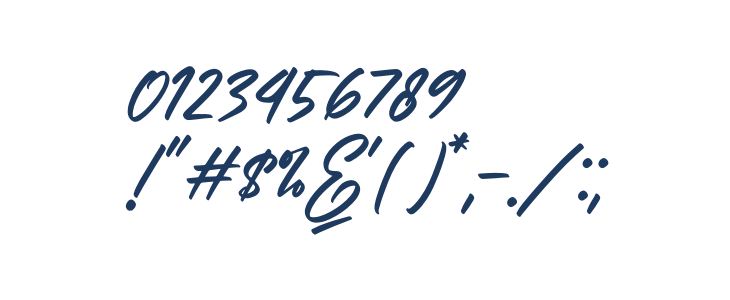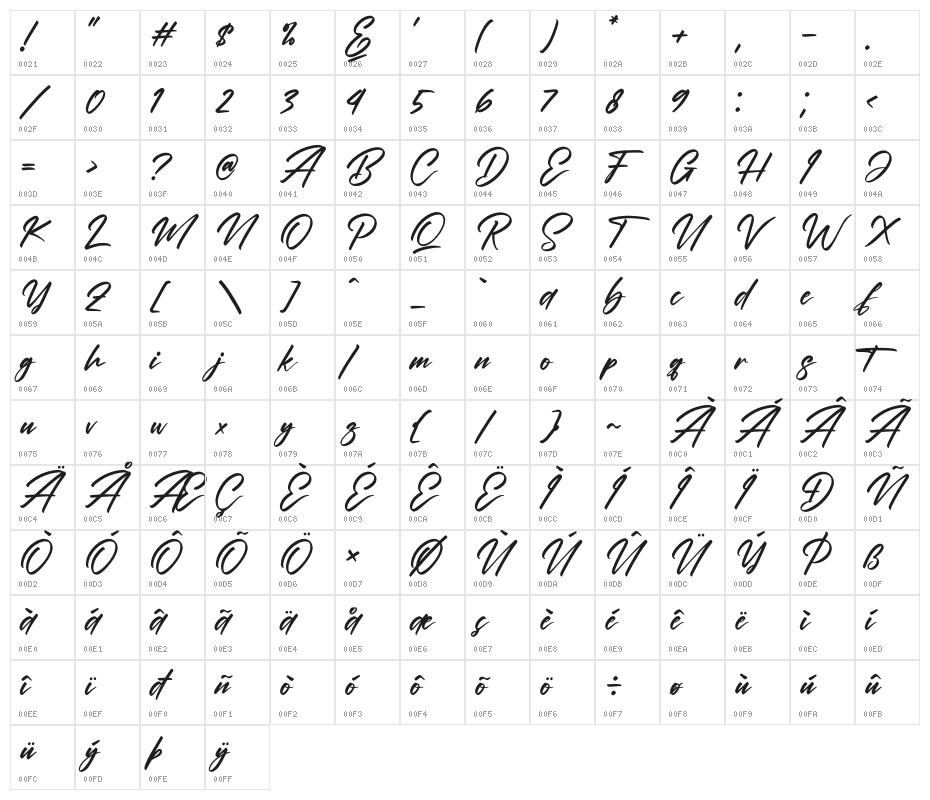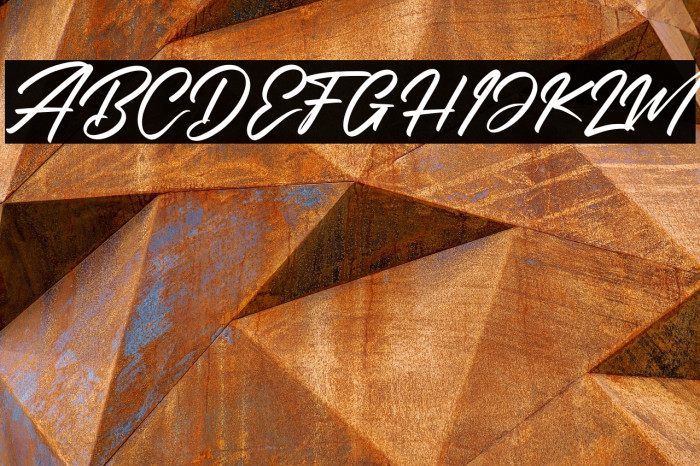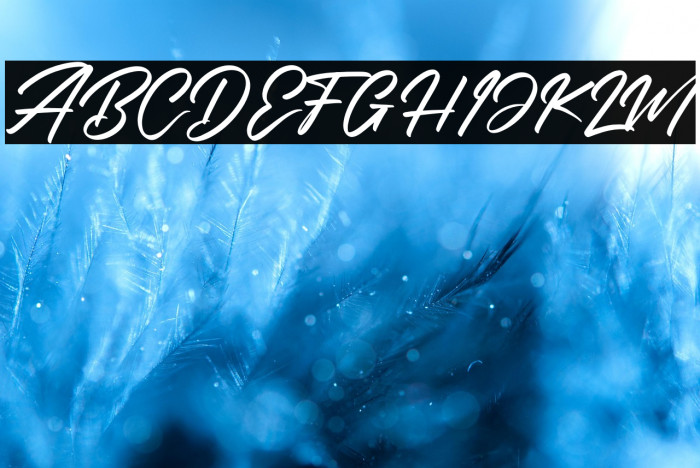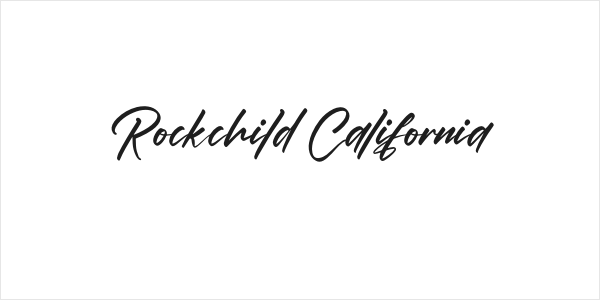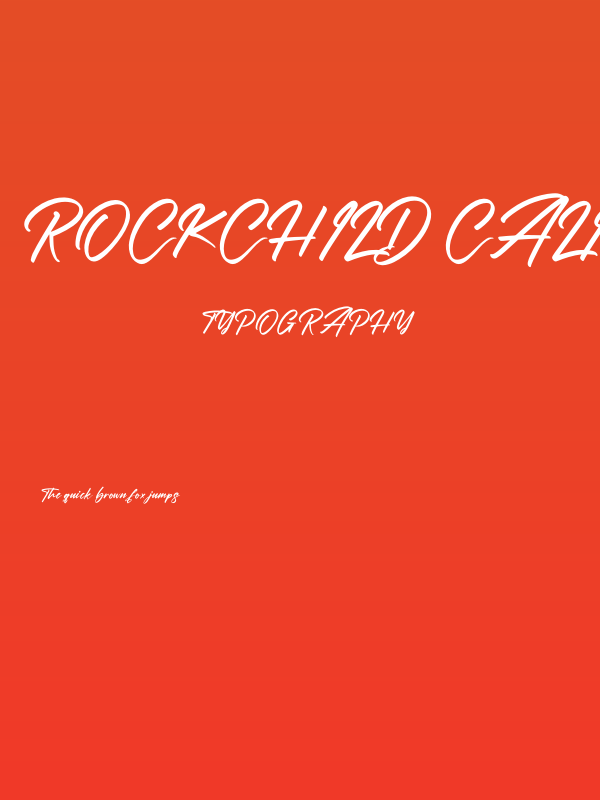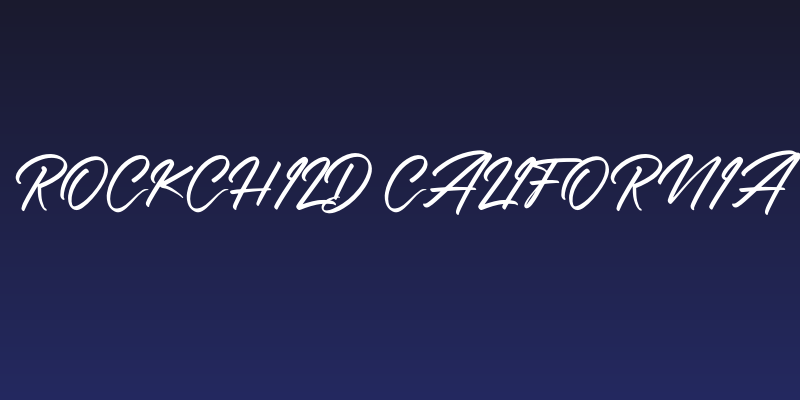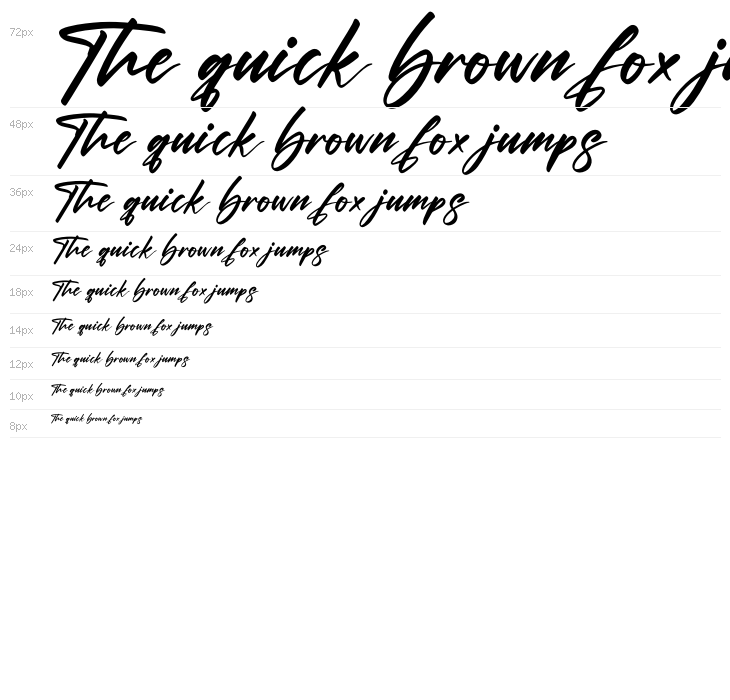
Rockchild California Font
Rockchild California Description
This font features a dynamic and expressive script style, characterized by its fluid and cursive letterforms. The uppercase letters exhibit a sense of elegance and flair, with sweeping lines and a slight slant that adds to its handwritten appeal. The lowercase letters maintain consistency in style, with smooth transitions and rounded edges that enhance readability. The numerals are bold and clear, matching the overall aesthetic of the font. Special characters are well-integrated, maintaining the same flowing style. This font is perfect for projects that require a personal touch, such as invitations, branding, or artistic designs.
| Use Case | Logos, Headlines, Artistic designs |
| Proposed Projects | Ideal for invitations, branding, artistic designs, and any project needing a personal touch. |